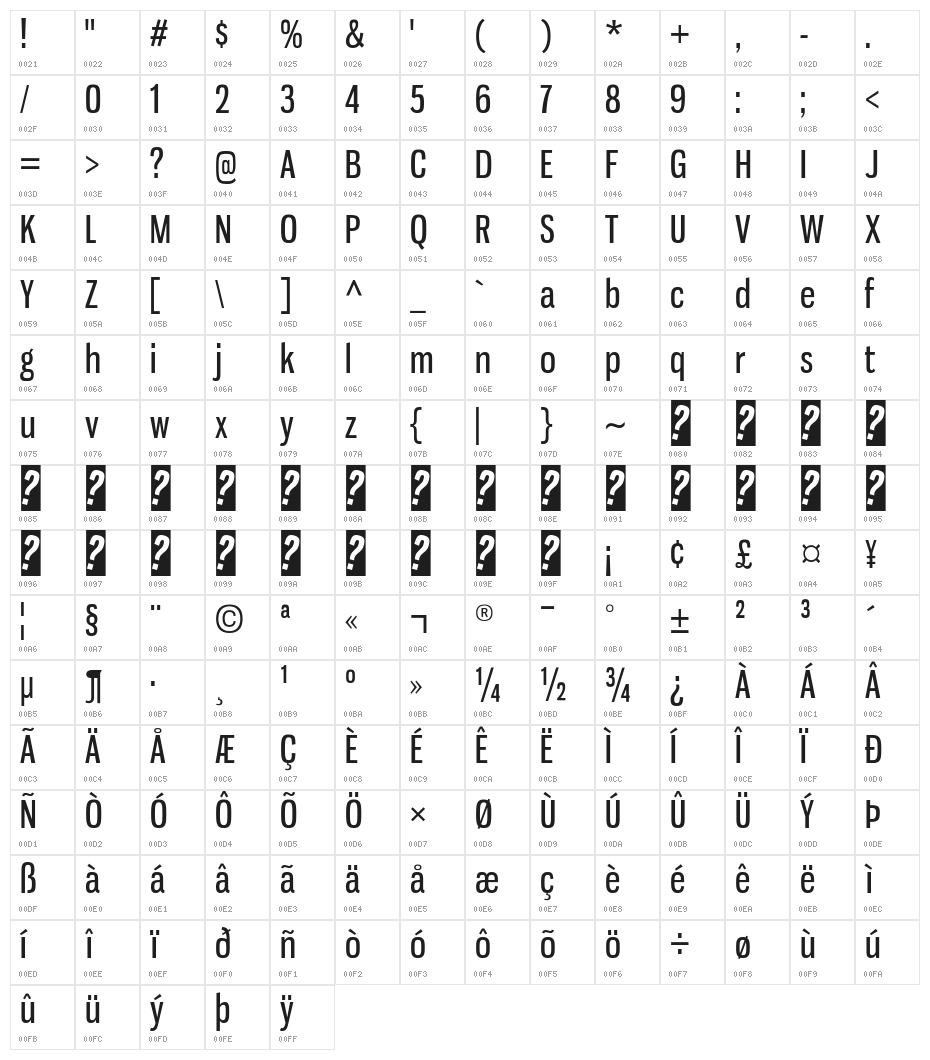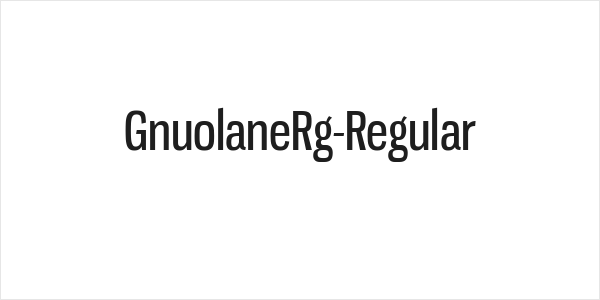
GnuolaneRg-Regular Font
GnuolaneRg-Regular Description
This font features a clean and modern sans-serif design with a strong presence and high readability. The characters are uniformly structured with a consistent stroke width, providing a balanced and professional appearance. The uppercase and lowercase letters maintain a harmonious relationship, while the numerals and special characters integrate seamlessly into the overall design. The font's simplicity and clarity make it versatile for various applications, from digital to print media.
| Proposed Projects | Ideal for branding, advertising, web design, and editorial projects where clarity and modernity are essential. |